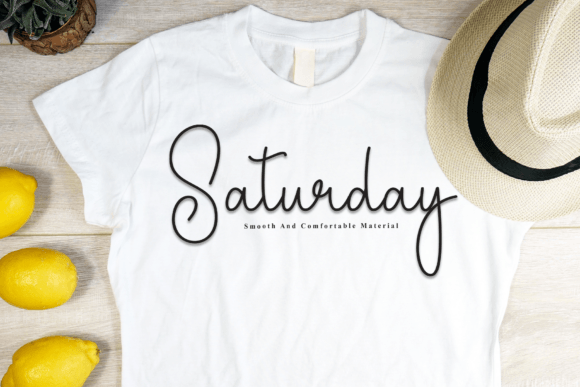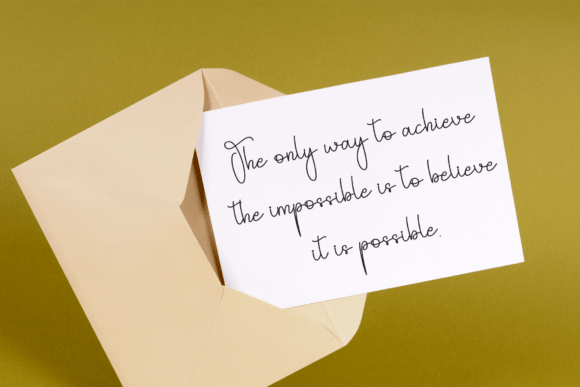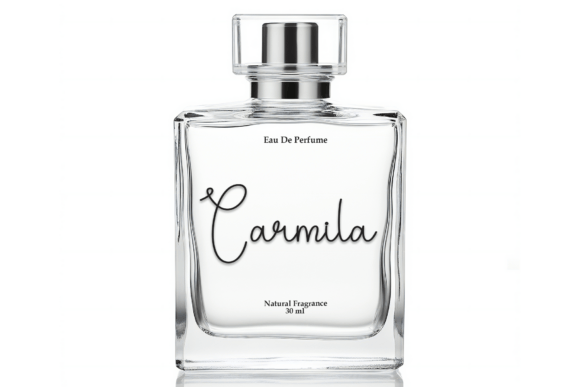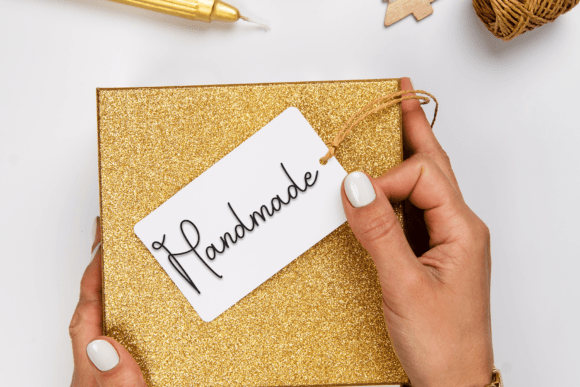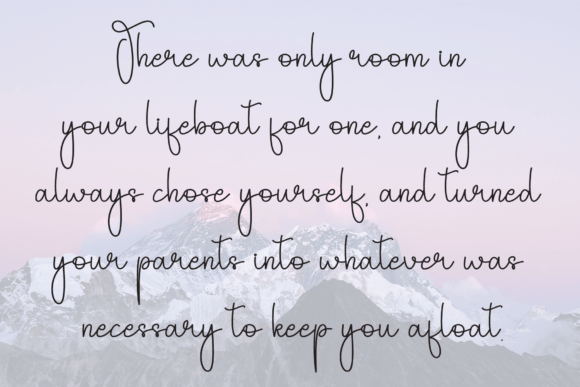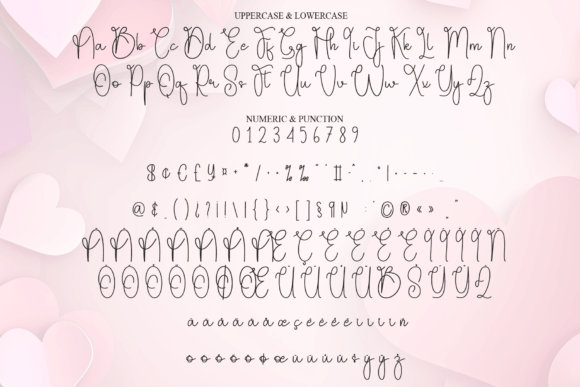
Introducing Heart Font: The Epitome of Elegance and Charm
Are you a designer or crafter looking for a font that can add a touch of sophistication and warmth to your designs? Look no further than Heart Font, a stylish handwritten script font that exudes elegance and charm. With its fluid strokes and natural flow, this captivating font is perfect for adding a personal touch to invitations, branding, or social media.
The Characteristics of Heart Font
Heart Font is a beautifully crafted handwritten script font that boasts a range of characteristics that make it stand out from the crowd. Its fluid strokes and natural flow create a sense of movement and energy, giving your designs a dynamic and captivating look. The font’s elegant and charming aesthetic makes it perfect for designs that require a touch of sophistication and refinement.
Uses of Heart Font
Heart Font is a versatile font that can be used in a wide range of design applications. Here are some of the ways you can use this beautiful font:
- Invitations: Whether you’re designing wedding invitations, birthday party invites, or baby shower announcements, Heart Font is the perfect choice. Its elegant and charming aesthetic adds a touch of sophistication and warmth to your designs.
- Branding: If you’re looking for a font that can help you establish a strong brand identity, Heart Font is an excellent choice. Its unique and captivating aesthetic can help you stand out from the competition and create a lasting impression on your customers.
- Social Media: Heart Font is also perfect for social media designs, including Instagram posts, Facebook graphics, and Twitter headers. Its elegant and charming aesthetic can help you create engaging and shareable content that resonates with your audience.
Benefits of Using Heart Font
There are many benefits to using Heart Font in your designs. Here are some of the advantages of choosing this beautiful font:
- Unique and Captivating Aesthetic: Heart Font has a unique and captivating aesthetic that can help you create designs that stand out from the crowd.
- Elegant and Charming: The font’s elegant and charming aesthetic makes it perfect for designs that require a touch of sophistication and refinement.
- Versatile: Heart Font is a versatile font that can be used in a wide range of design applications, from invitations and branding to social media and more.
- Easy to Read: Despite its elegant and charming aesthetic, Heart Font is easy to read and understand, making it perfect for designs that require a clear and concise message.
Tips for Using Heart Font
Here are some tips for using Heart Font in your designs:
- Pair it with Other Fonts: Heart Font can be paired with other fonts to create a unique and captivating aesthetic. Try pairing it with a bold sans-serif font for a striking contrast.
- Use it for Headings: Heart Font is perfect for headings and titles, where its elegant and charming aesthetic can really shine.
- Experiment with Colors: Heart Font looks great in a range of colors, from bold and bright to soft and pastel. Experiment with different colors to find the perfect look for your design.
In conclusion, Heart Font is a stylish handwritten script font that exudes elegance and charm. Its fluid strokes and natural flow create a captivating, sophisticated look that’s perfect for adding a personal touch to invitations, branding, or social media. With its versatile and easy-to-read aesthetic, Heart Font is a great choice for designers and crafters looking to create beautiful and engaging designs.